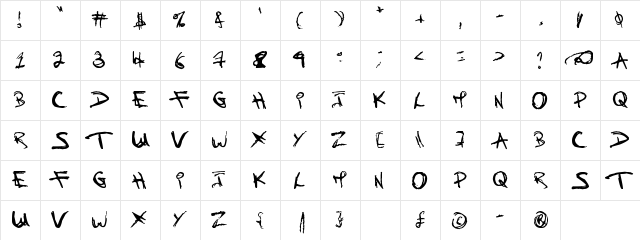
Children Once Where Regular
Design Context for Children Once Where Typeface
Children Once Where has an approachable, lighthearted character — its loose, expressive forms are well-suited to children's content, casual branding, and fun-first design.
Font Pairing: Pairs well with a rounded or humanist sans for body copy, maintaining the friendly tone without relying on Children Once Where to carry extended reading.
Pro Tip: Avoid using Children Once Where for long passages of text — it works best for headlines, labels, and short calls to action.